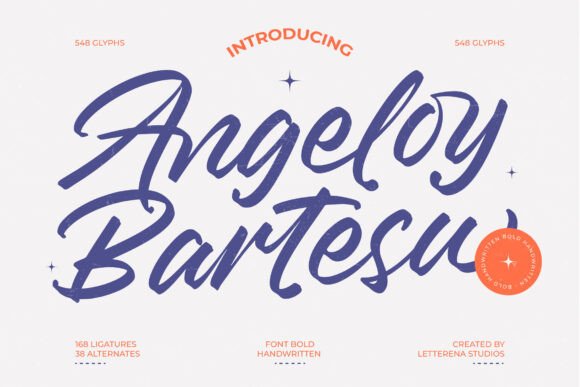
The Designer’s Delight: Angeloy Bartesu Font
Have you ever been in the middle of a design project, and suddenly, you’re stuck on finding the perfect font? I recall a recent experience where I was working on a luxury branding project, and my client specifically asked for a font that exudes elegance and sophistication. After hours of searching, I stumbled upon the Angeloy Bartesu Font from Letterena, and it was love at first sight! 💕
This beautiful, bold handwritten font has been a game-changer for my design workflow, and I’m excited to share my experience with you. Whether you’re a designer, crafter, or creative hobbyist, you’ll love the versatility and luxury feel that Angeloy Bartesu brings to the table.
- 💯 Elegant and sophisticated design, perfect for luxury projects
- 🎨 Beautifully crafted with attention to detail, giving it a unique feel
- 📦 Versatile and suitable for a wide range of projects, from logos to product packaging
While Angeloy Bartesu is an exceptional font, there are a few minor things to keep in mind:
Angeloy Bartesu was crafted with passion and dedication by the talented team at Letterena. The font’s design is inspired by the beauty of handwritten scripts and the elegance of luxury branding. The team aimed to create a font that would be both versatile and sophisticated, suitable for a wide range of creative projects.
Q: What type of projects is Angeloy Bartesu suitable for?
A: Angeloy Bartesu is perfect for luxury projects, such as logos, branding, homeware designs, product packaging, and more.
Q: Does Angeloy Bartesu support OpenType features?
A: Yes, Angeloy Bartesu supports OpenType features, including ligatures and stylistic alternates, which can be accessed in compatible design software.